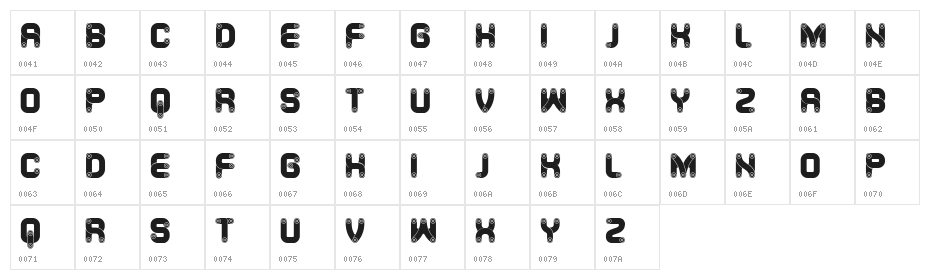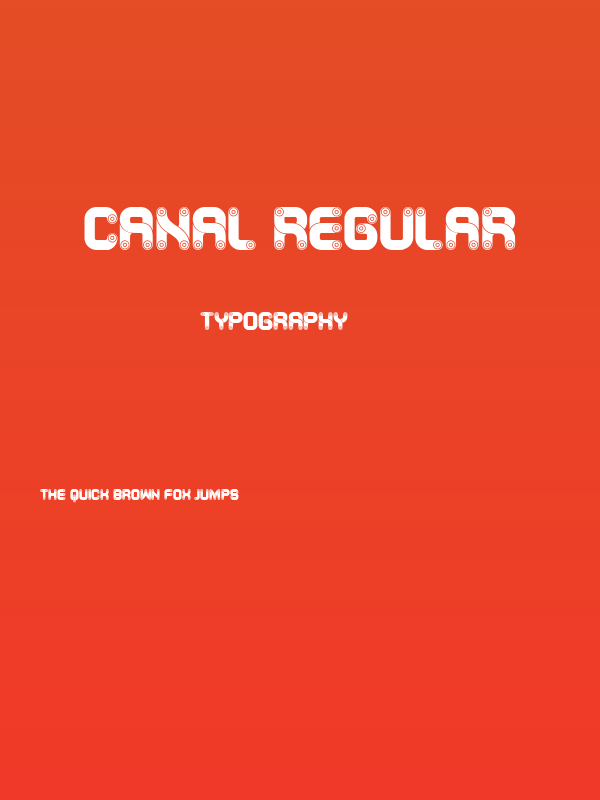
Canal Regular Font
Canal Regular Description
This font features a unique and bold design with a mechanical and industrial aesthetic. Each character is constructed with a series of circular elements and lines that resemble gears or machinery parts, giving it a distinct and eye-catching appearance. The letters are uniformly bold and have a consistent stroke width, contributing to a strong visual impact. The font is highly decorative and is best suited for creative projects where a futuristic or technological theme is desired. Its intricate design elements make it stand out, making it ideal for headlines or display purposes where attention is paramount.
| Overall Style | Futuristic, Industrial |
| Use Case | Headlines, Logos, Display |
| Proposed Projects | Ideal for technology-themed posters, futuristic branding, video game titles, and sci-fi book covers. |